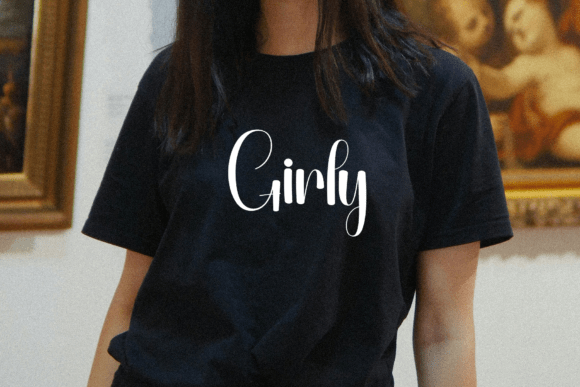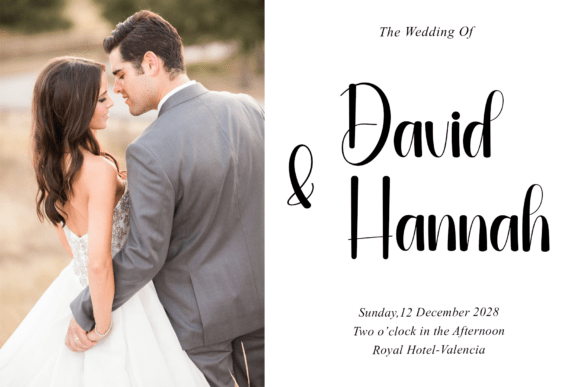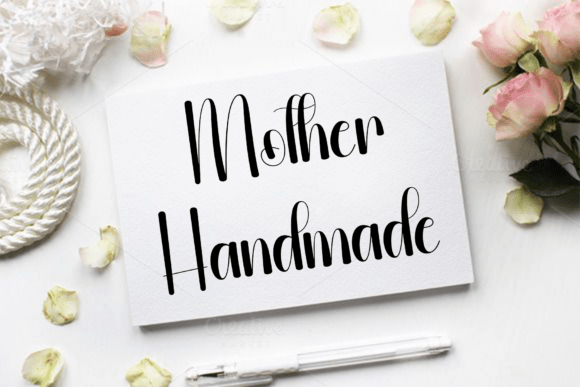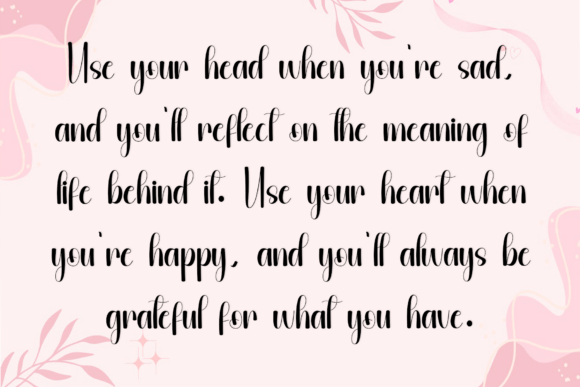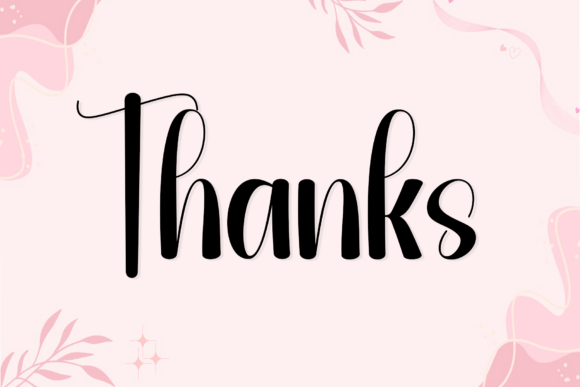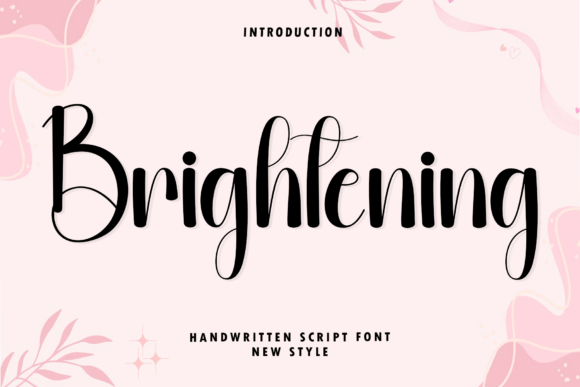
Introducing Brightening Font: Elevate Your Design with Modern Elegance
In the world of typography, fonts play a crucial role in defining the aesthetic and tone of a design. For those seeking to infuse their projects with a touch of sophistication and luxury, the Brightening Font is an exceptional choice. This stunning handwritten script font is crafted to embody modern elegance through its fluid, signature-like motion, making it perfect for a variety of high-end applications.
The Essence of Brightening Font
Brightening Font is a “new style” handwritten script font that redefines modern elegance. Its design is characterized by a delicate balance of tall ascenders and graceful, sweeping loops. This balance creates a rhythmic and sophisticated visual flow that captures the essence of luxury and refinement. Each letter is carefully crafted to ensure a seamless connection, resulting in a fluid and natural appearance that mimics the flow of a signature.
Key Features of Brightening Font
• Fluid, Signature-Like Motion: The font’s design is inspired by the natural flow of handwriting, giving it a personal and elegant touch.
• Delicate Balance: The combination of tall ascenders and sweeping loops creates a visually appealing rhythm that adds sophistication to any text.
• Luxury and Versatility: Ideal for luxury branding, signature logos, wedding stationery, and high-end editorial content, Brightening Font brings an unmistakable touch of class to every word.
Applications of Brightening Font
Brightening Font’s versatility and elegance make it suitable for a wide range of design applications. Here are some of the key areas where this font truly shines:
Luxury Branding
For brands aiming to establish a high-end image, Brightening Font offers a typographic solution that exudes elegance and sophistication. Its unique style helps in creating a memorable brand identity that stands out in the luxury market.
Signature Logos
The fluid, signature-like quality of Brightening Font makes it an excellent choice for crafting signature logos. It adds a personal touch to the logo, making it more relatable and distinctive.
Wedding Stationery
Wedding planners and stationery designers can leverage Brightening Font to add a touch of romance and luxury to wedding invitations, menus, and other stationery. Its elegant appearance sets the tone for a sophisticated and memorable event.
High-End Editorial Content
For editorial projects that demand a high level of sophistication, such as luxury lifestyle magazines or upscale blogs, Brightening Font provides a typographic solution that enhances the content’s visual appeal and readability.
Why Choose Brightening Font?
Choosing Brightening Font for your design project comes with numerous benefits:
• Unique Aesthetic: Its distinctive style ensures your design stands out from the crowd.
• High Versatility: Suitable for a wide range of applications, from digital content to print materials.
• Elegance and Sophistication: Adds a touch of luxury to any design, elevating its overall appeal.
Brightening Font is a remarkable addition to the world of typography, offering designers and crafters a tool to infuse their projects with modern elegance and sophistication. Its fluid, signature-like motion, combined with a delicate balance of tall ascenders and sweeping loops, makes it the perfect choice for luxury branding, signature logos, wedding stationery, and high-end editorial content. By choosing Brightening Font, you are opting for a typographic solution that brings an unmistakable touch of class to every word, ensuring your design stands out with elegance and refinement.
Whether you’re a professional designer or a crafting enthusiast, Brightening Font is set to become an indispensable part of your creative arsenal. Its ability to convey luxury and elegance through its unique typographic style makes it a valuable asset for anyone looking to create visually stunning and sophisticated designs. Experience the elegance of Brightening Font and take your projects to new heights of aesthetic excellence.